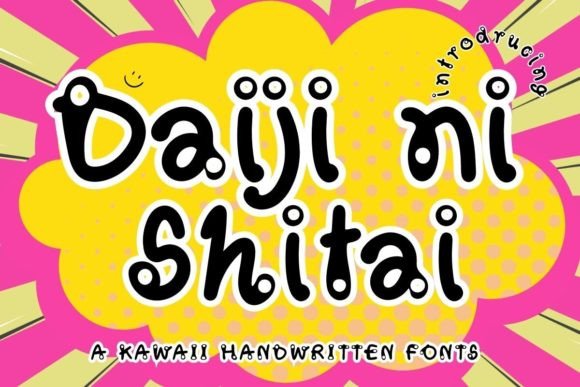
Dive into a world of charm and uniqueness with Daiji Ni Shitai font, meticulously crafted by TONGMON DRAW. This enchanting handwritten font, belonging to the display font family, takes you on a journey of vintage charm, perfect for creating designs that capture attention and leave a lasting impression.
Unleash your creativity with Daiji Ni Shitai's playful and expressive style, adding a touch of whimsy and individuality to your projects. Whether you're designing logos, posters, social media graphics, or any other visual masterpiece, this font will infuse your work with an unforgettable personal touch.
Daiji Ni Shitai's versatility extends far and wide, making it suitable for an array of projects. Its casual yet elegant appearance lends itself beautifully to branding materials, adding a touch of sophistication to your business's identity. It also shines in invitations and greeting cards, conveying warmth and sincerity through every letter.
Experience the sheer delight of using Daiji Ni Shitai, a font that dances across your screen with grace and fluidity. Its smooth curves and playful strokes ignite a sense of joy and exuberance, making the creative process an absolute pleasure. Let your imagination run wild as you explore endless possibilities with this remarkable font.
Open the door to boundless creativity and embrace the vintage charm of Daiji Ni Shitai. With its endearing personality and captivating style, this font promises to elevate your designs to new heights, leaving an unforgettable mark on your audience. Take the plunge and immerse yourself in the world of Daiji Ni Shitai today!